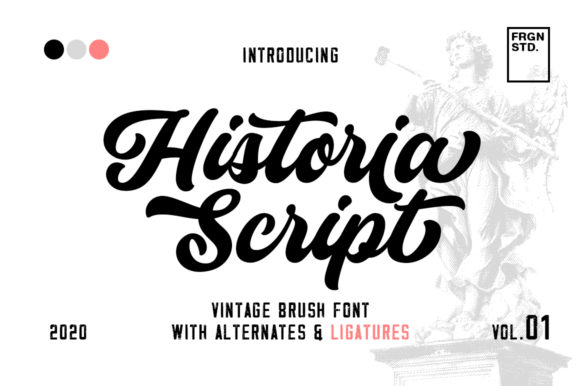
In a world where individuality and self-expression reign supreme, behold Historia, the exquisite script font that will make your creations bloom with an allure that captivates and enthralls. Step into a realm of aesthetics where your designs will bask in the warmth of Historia's enchanting curves, where every letter dances with a grace that is both delicate and bold. This captivating script, crafted with the utmost care and precision, offers a symphony of glyphs that will transform your words into works of art, adding a touch of sophistication and charm to your creations.
Unleash the boundless potential of Historia, the font that knows no limits. Whether you seek to weave enchanting wedding invitations that whisper tales of love and romance, or craft alluring stationary art that speaks volumes about your impeccable taste, Historia will be your faithful companion. Its versatility extends to eye-catching social media posts that demand attention and cute greeting cards that warm hearts with their sincerity.
With Historia as your ally, you'll discover hidden realms of creativity, where your imagination knows no bounds. Dive into a world of endless possibilities, where the ordinary becomes extraordinary. Adorn your designs with the beauty of Historia and watch as they metamorphose into visual masterpieces that leave an indelible mark on the hearts of those who behold them.
So, dear adventurer of aesthetics, embrace the allure of Historia, a script font that will ignite your creative fire and propel your designs to dizzying heights. Bask in the glory of its stunning glyphs, revel in its versatility, and let your imagination run wild. The possibilities are endless, and the journey is yours to embark upon. Unleash the magic of Historia today and transform your designs into works of art that sing with eloquence and charm.